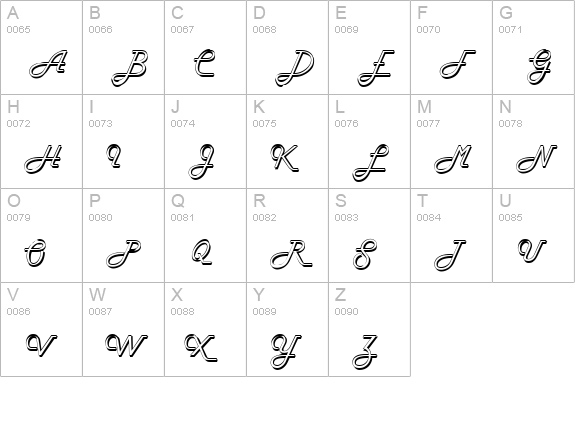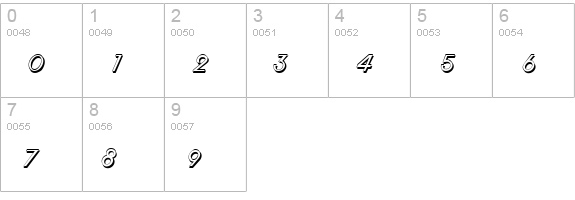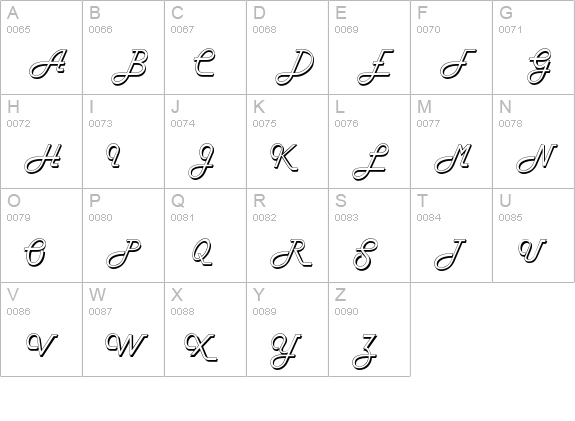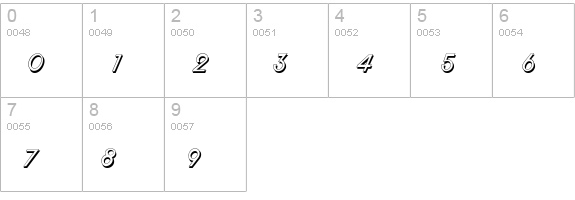
Halo Normal Font Details
Halo Normal is the standard, neutral variant in the Halo typeface family \xE2\x80\x94 well suited to general body text, paragraphs, and standard typographic work.
Halo Normal font is a beautifully crafted typeface that exudes elegance and sophistication. Its clean lines and balanced proportions make it perfect for a wide range of projects, from branding and logo design to editorial layouts and web graphics. With its versatile nature, this font can effortlessly adapt to any design concept, adding a touch of class and professionalism. What's even better is that Halo Normal font is available for free! Yes, you heard it right. You can freely download this incredible font at FontsMarket.com. With just a few clicks, you can enhance your creative endeavors without any cost. This font's versatility is truly unmatched. Whether you're designing a sleek modern website, a stylish fashion magazine, or a professional business presentation, Halo Normal font will help you achieve the desired look and feel. Its legibility and sophisticated aesthetic ensure that your message is conveyed with clarity and impact. The carefully crafted letterforms of Halo Normal font are a testament to the skill and dedication of its designer. Each character is meticulously designed, resulting in a harmonious and visually pleasing typeface. The attention to detail and quality craftsmanship is evident in every curve and stroke, making this font a true work of art. So why wait? Take advantage of this amazing opportunity to elevate your designs with Halo Normal font. Download it for free now at FontsMarket.com and unlock a world of creative possibilities. Let your imagination soar and create stunning visuals that leave a lasting impression.